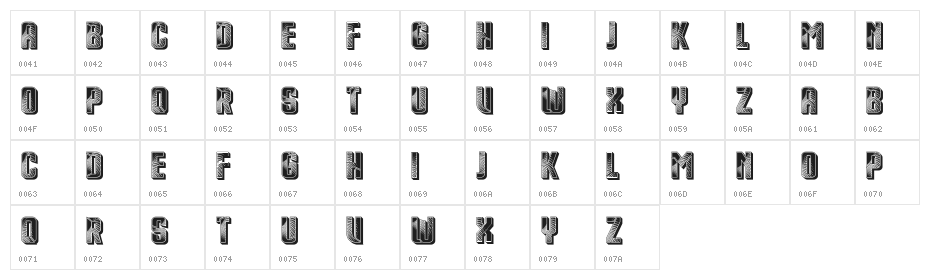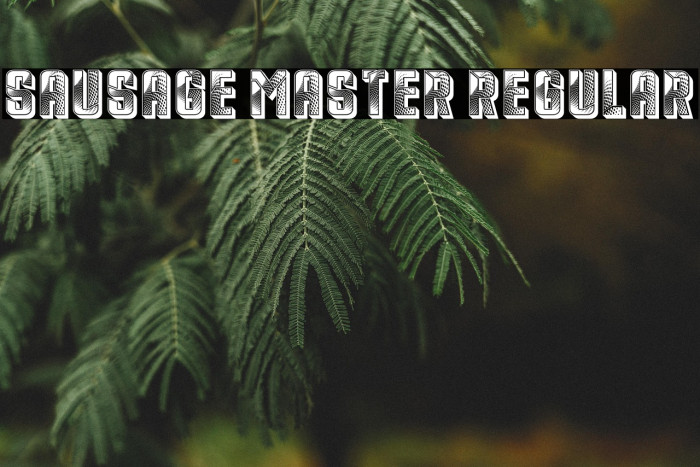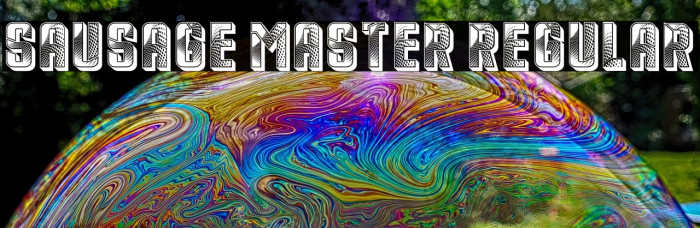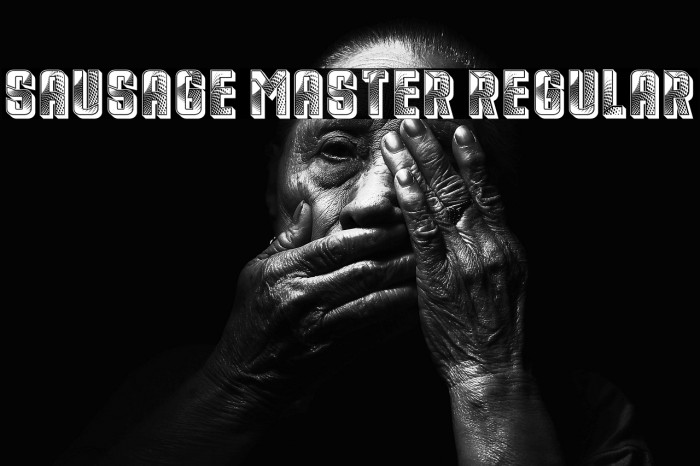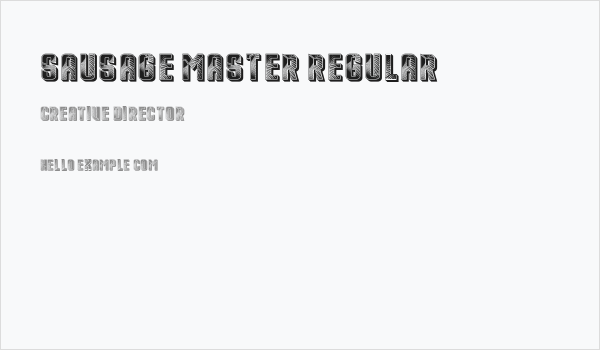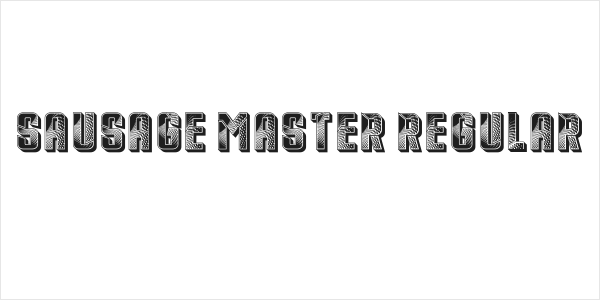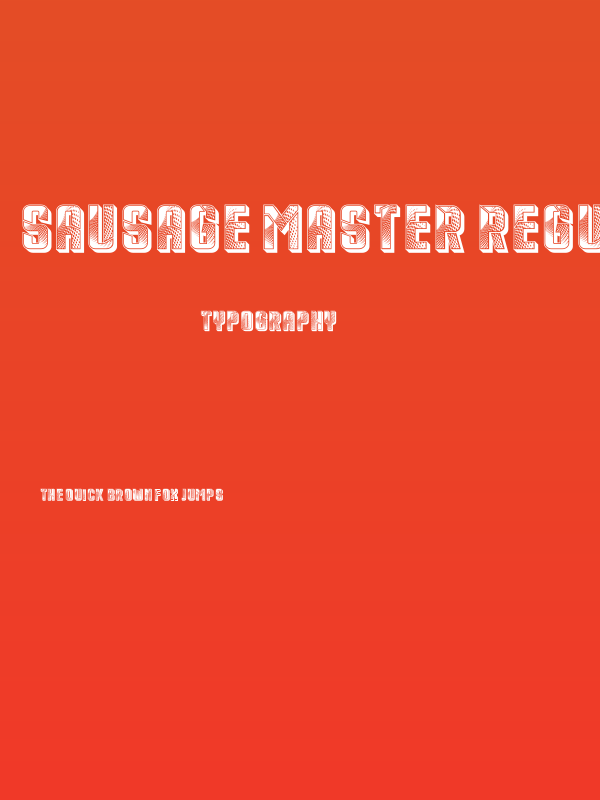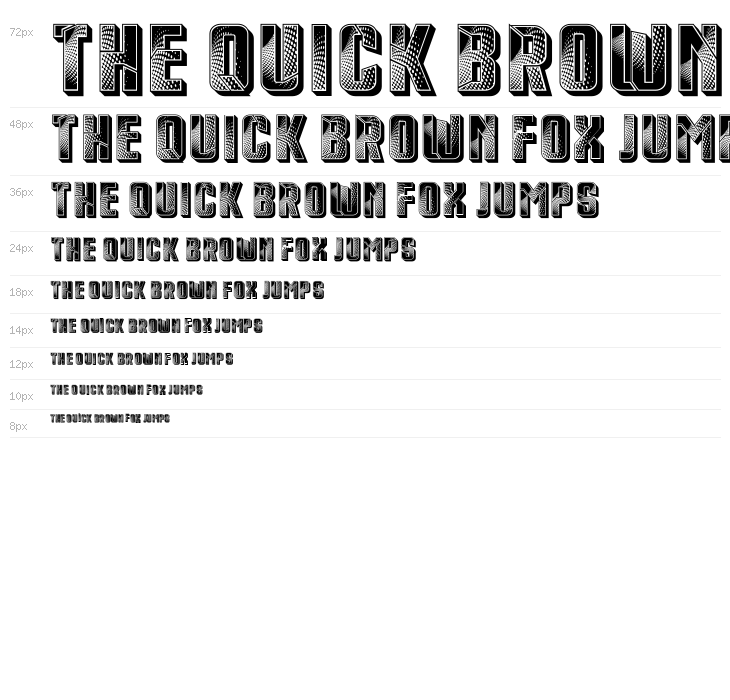
Sausage Master Regular Font
Sausage Master Regular Description
This font features a bold, decorative style with a unique 3D effect. Each character is designed with intricate patterns and shading, creating a sense of depth and texture. The uppercase letters are particularly striking, with a strong presence that demands attention. The font's playful yet structured design makes it versatile for various creative projects. Its distinct appearance is ideal for making a statement, whether in print or digital media.
| Proposed Projects | Ideal for posters, logos, headlines, and any project requiring a bold, eye-catching typeface. |